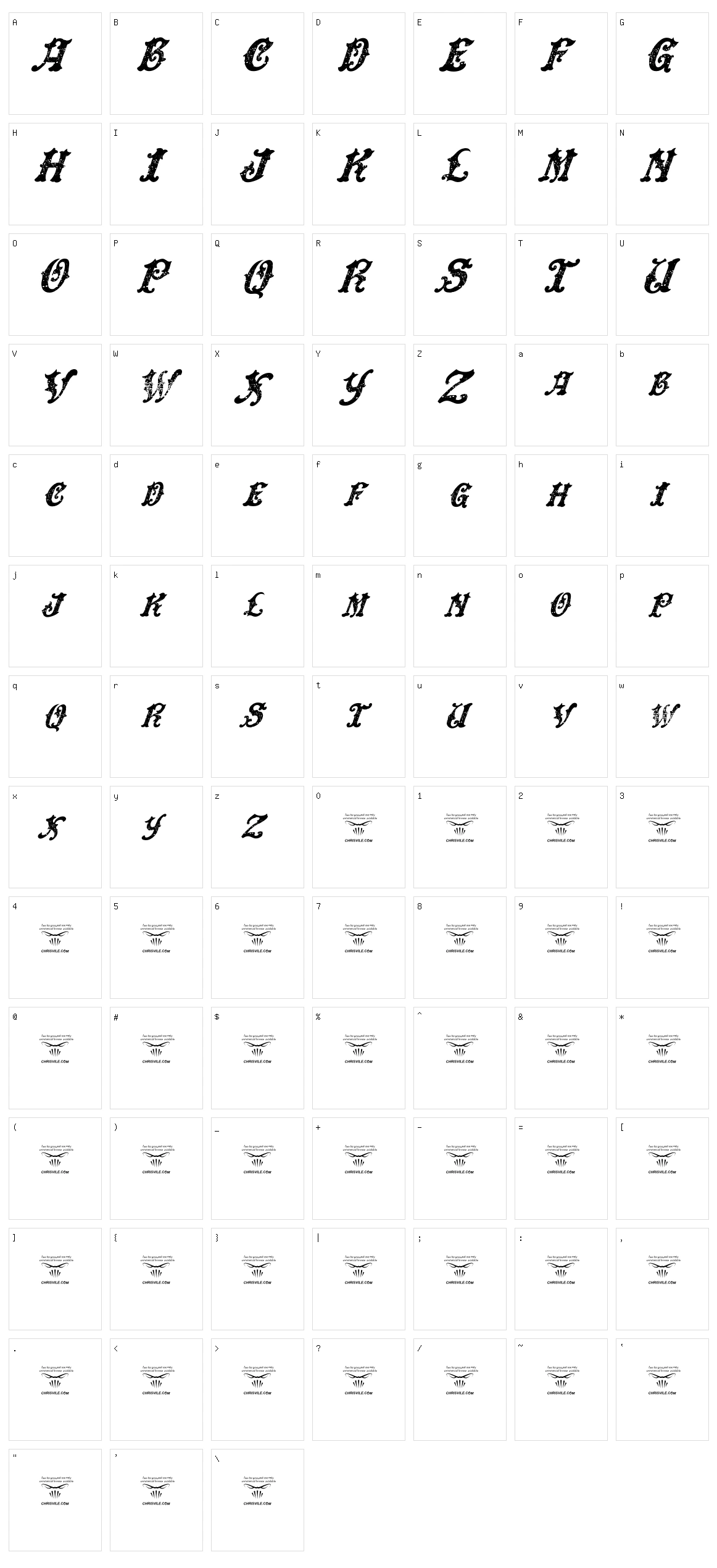
The free font Dingle Huckleberry is carefully designed by Font Monger, showcasing a thoughtful balance of creativity and usability and falls under the Western font style. When you download the ZIP file, it contains only 543.56 KB of font files, making it lightweight and quick to download. Please review the license details below to understand permitted usage and distribution rights. If license information is not available, we recommend using this font for personal projects only or contacting the author directly for commercial usage permissions.